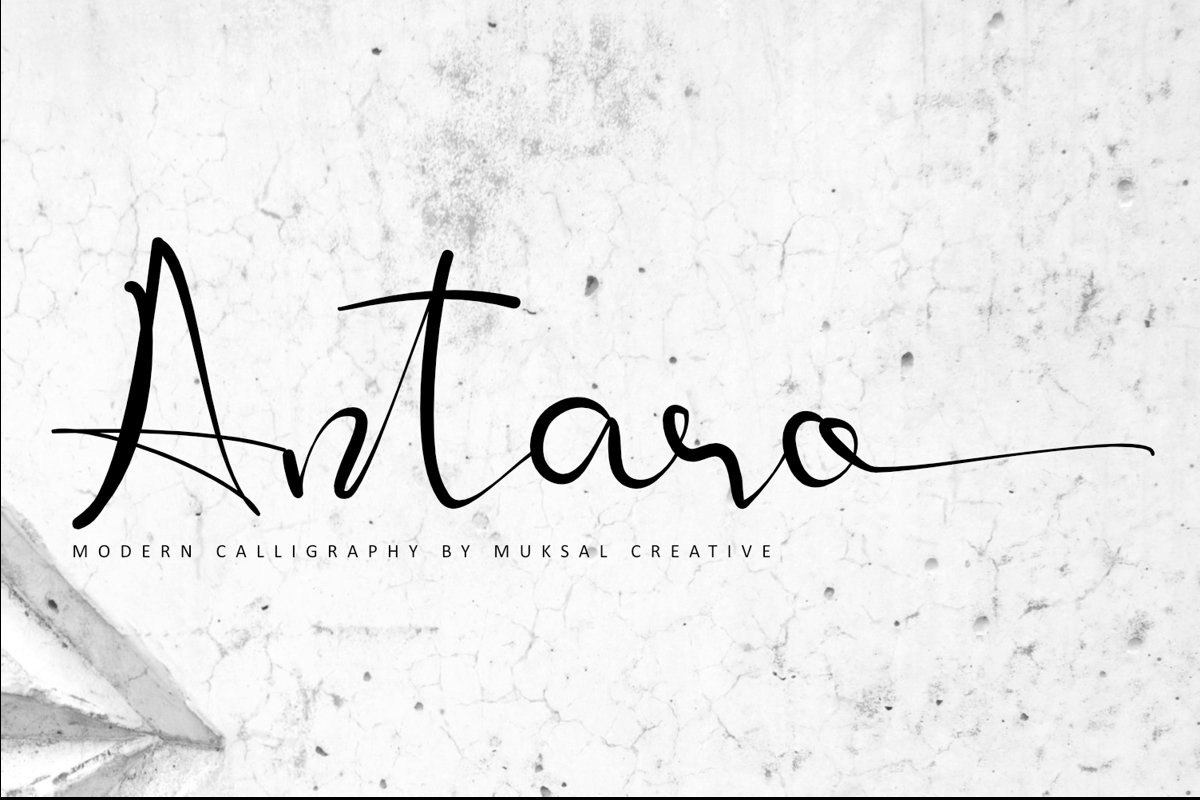
Antaro
Antaro Script is a new modern calligraphy Script fonts, combines from copperplate to contemporary typeface, classic and elegant touch. With extra bouncy curves & loops,Antaro Script is guaranteed to make your text stand out - perfect for logos, printed quotes, invitations, cards, product packaging, headers and whatever your imagination holds.